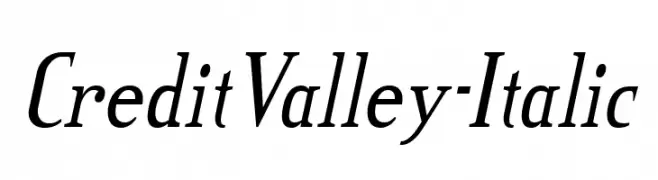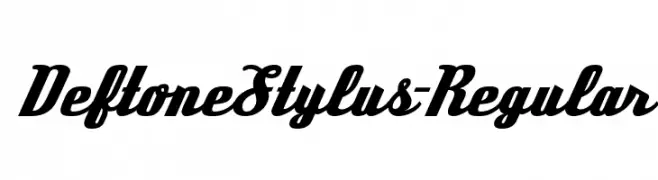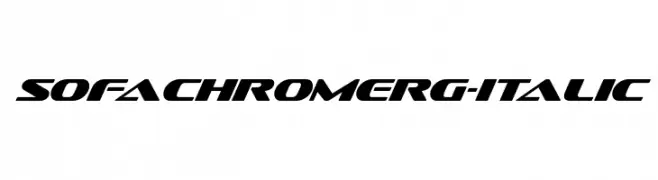
• BlueHighwayLinocut-Regular
A bold, rugged font with a linocut-inspired, hand-carved appearance.
• BlueHighwayCondensed-Regular
A bold, condensed sans-serif font ideal for impactful designs.
• Iomanoid-Regular
A bold, futuristic font with a three-dimensional, geometric design.
• DeftoneStylus-Regular
A bold, cursive font with interconnected characters and a dynamic flow.
• SofachromeRg-Regular
A bold, futuristic font with sharp, angular edges and a geometric structure.
• SofachromeRg-Italic
A bold, italicized font with a futuristic and geometric design.
• CreditValley-Regular
A modern serif font with elegant, elongated serifs and a sophisticated style.
• CreditRiver-Regular
A bold, modern serif font with angular serifs and a slightly condensed form.
• CreditValley-Bold
A bold serif font with strong strokes and a modern yet classic appeal.
• CreditValley-Italic
An elegant italic serif font with moderate contrast and classic style.